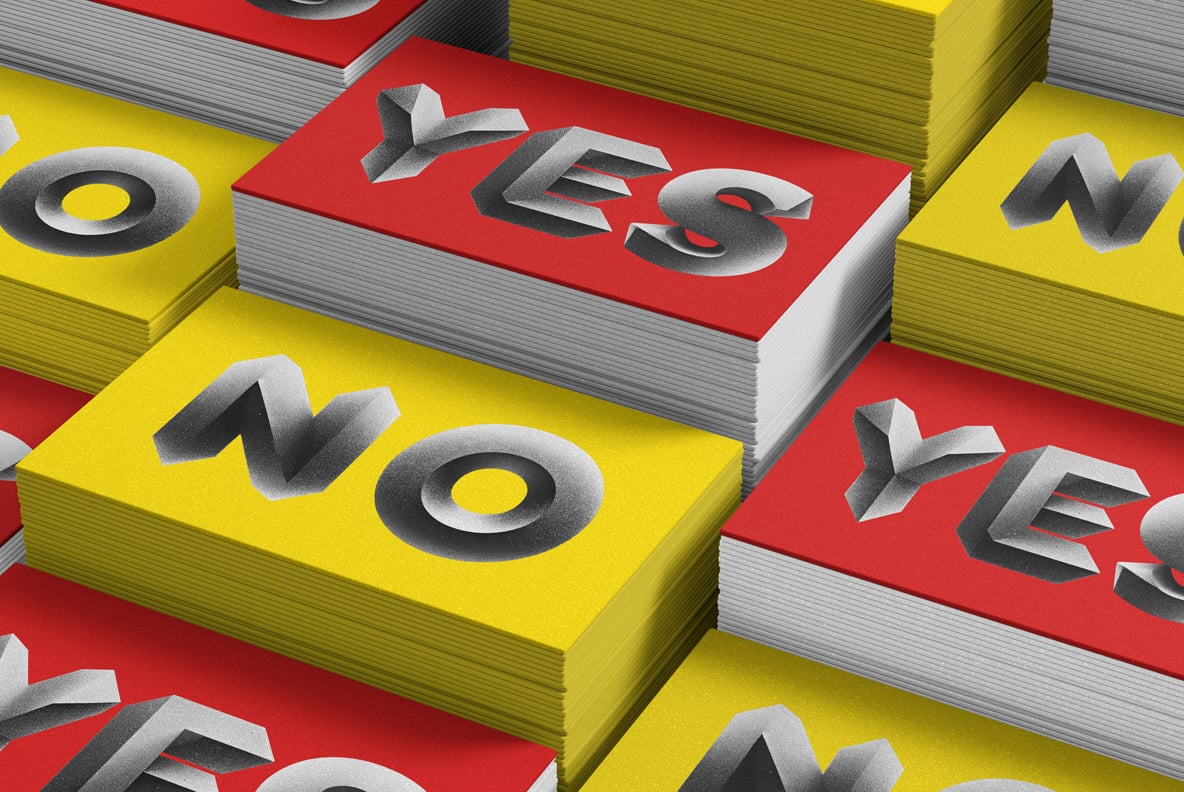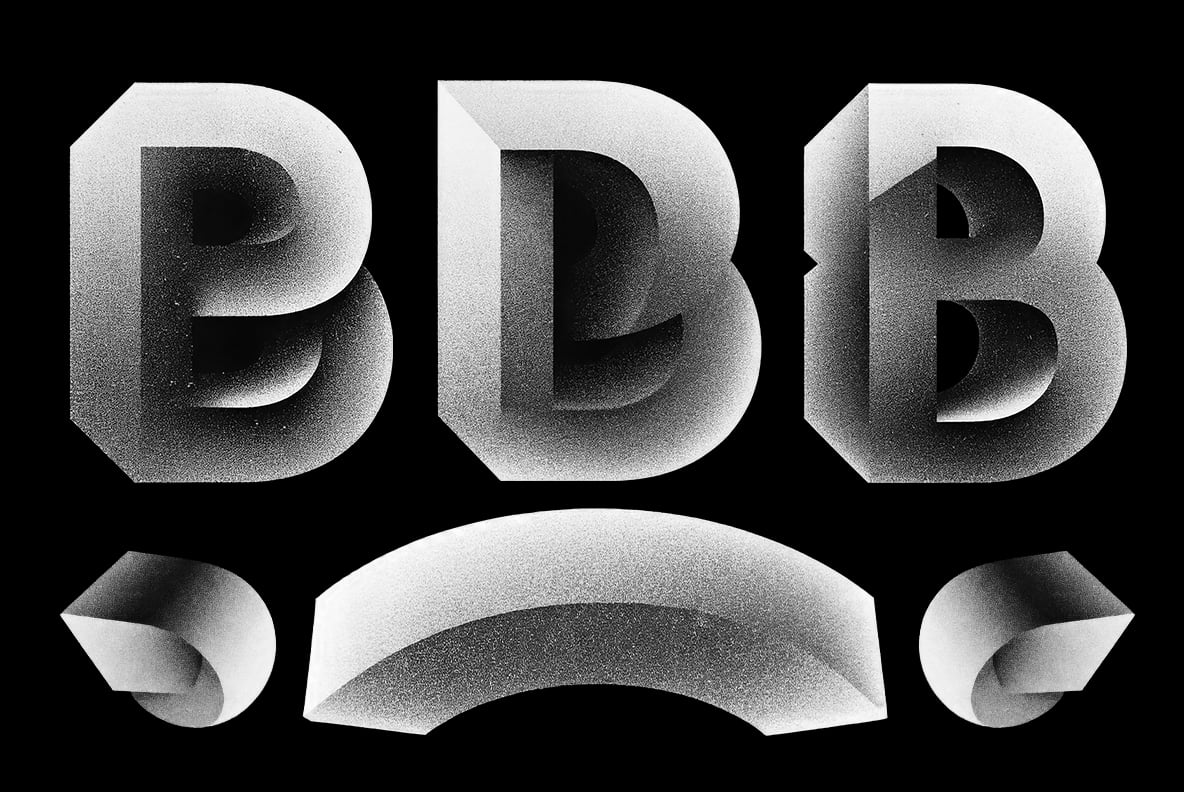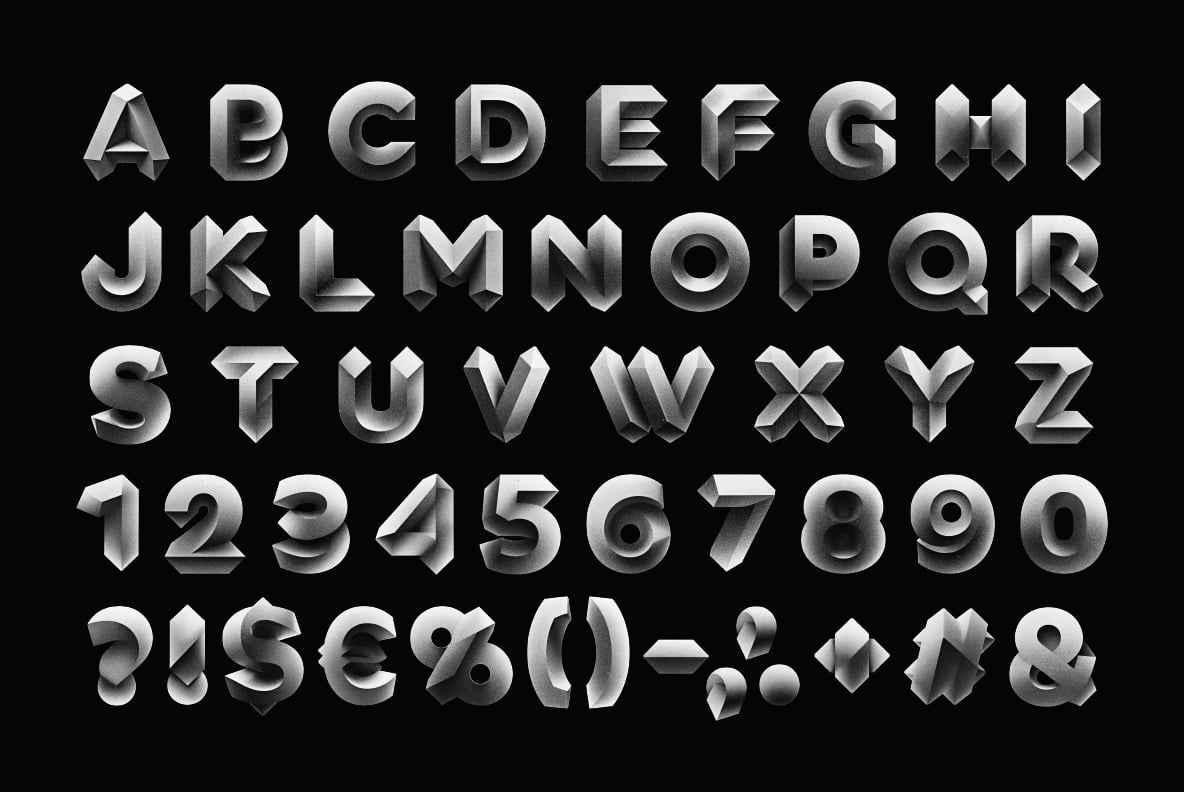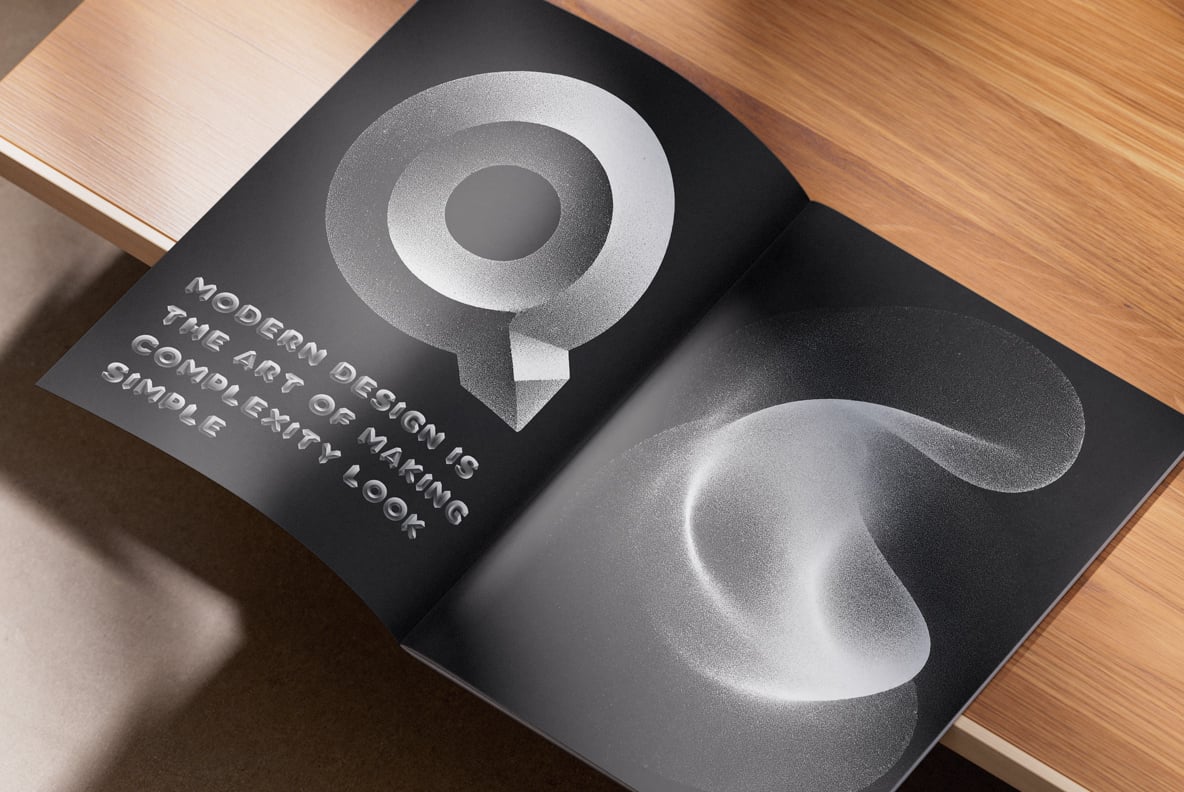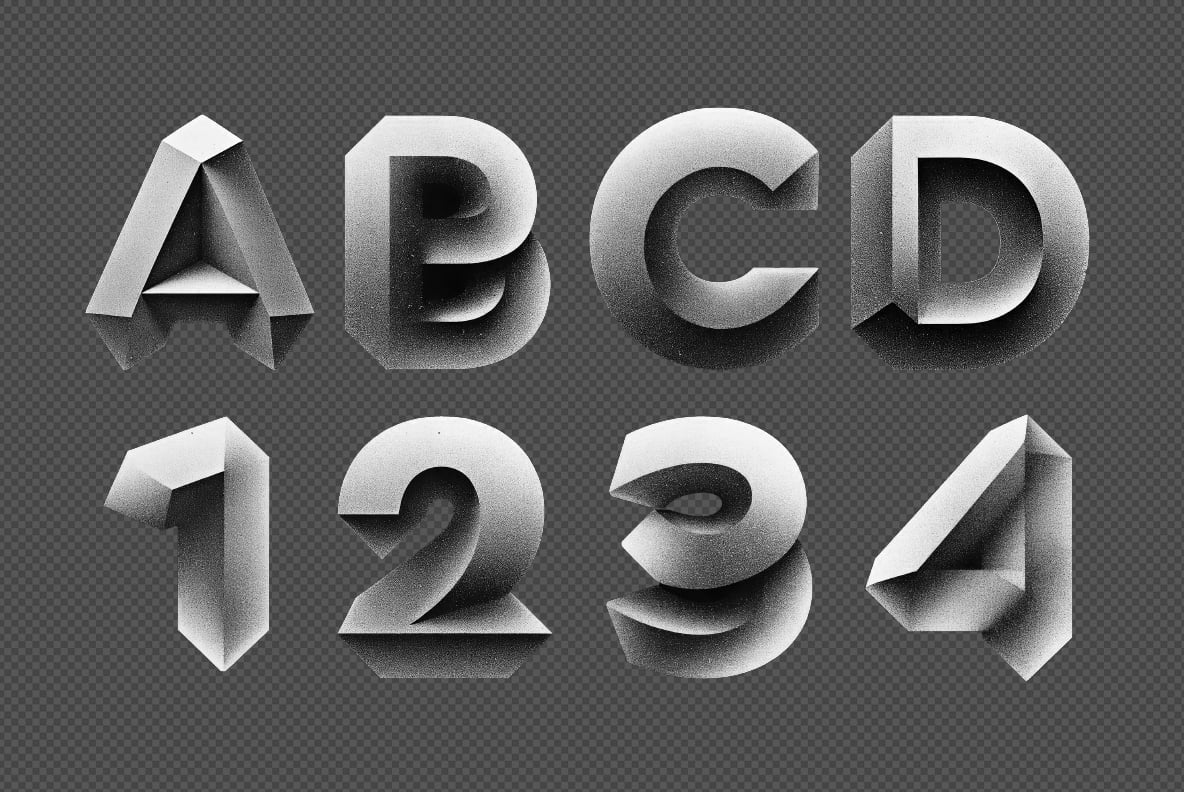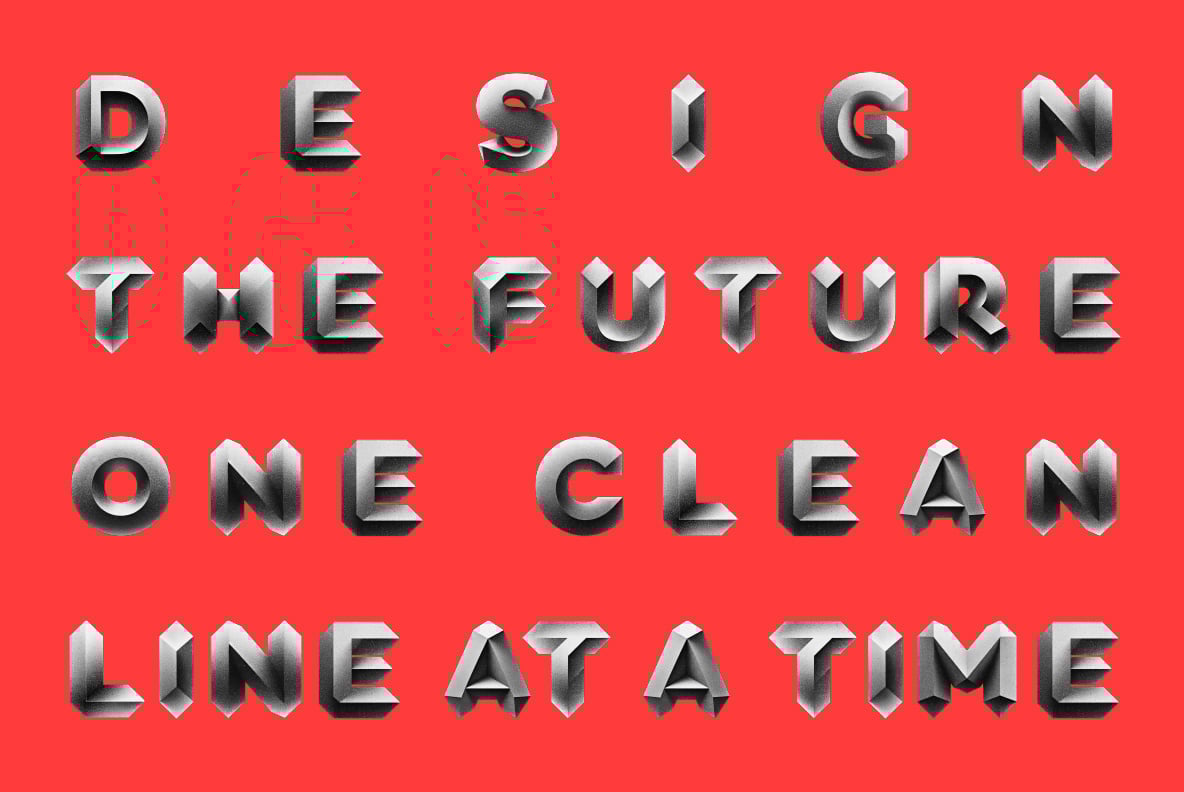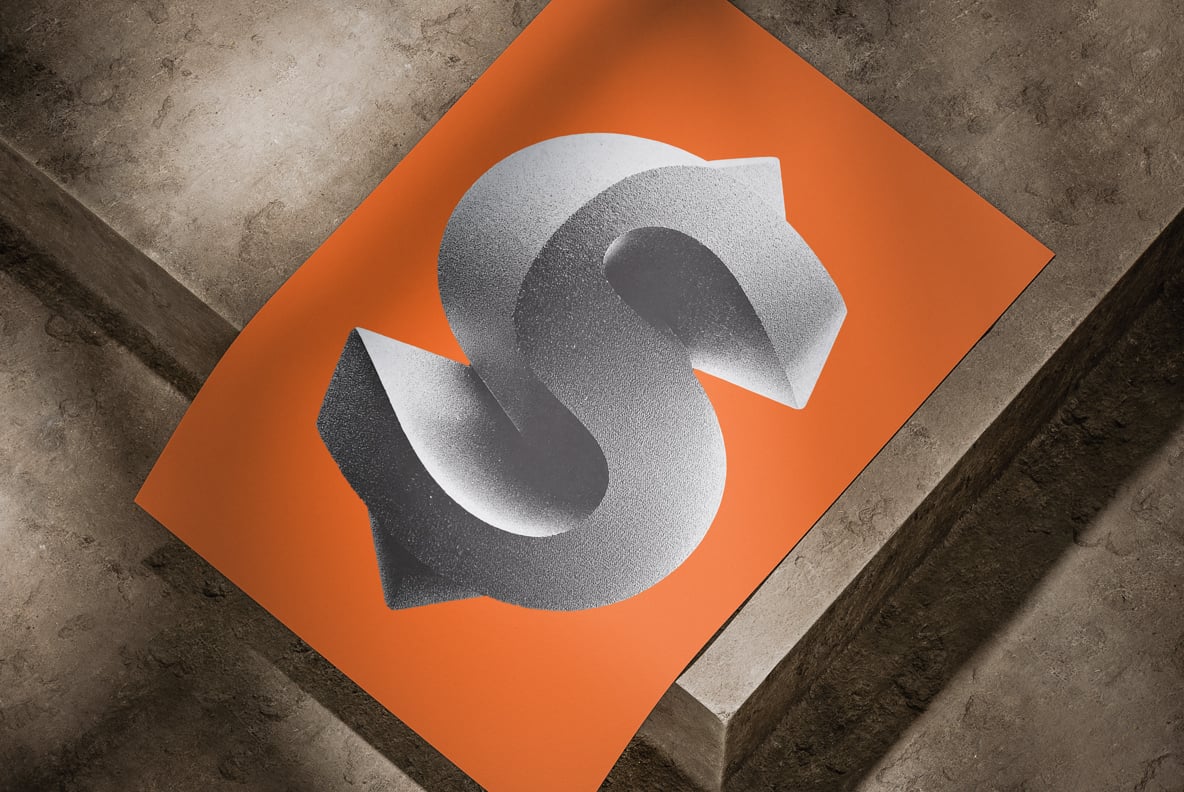
NeoRelic Font
Modern typography just leveled up! NeoRelic Font isn’t just a futuristic alphabet—it’s a high-tech artifact from a world where letters are engineered, not written. These bold, geometric characters look like they were chiseled by robots obsessed with sci-fi lettering. Each angular typeface feels like a relic from a cyberpunk utopia, sculpted from metallic dreams and sprinkled with digital dust. The grainy, noisy black texture adds an industrial edge, making the 3D typography pop like a hologram in deep space. This isn’t just fancy lettering—it’s the future of design, where every robotic letter carries the weight of a civilization built on sleek, sharp, and supremely cool modern design.